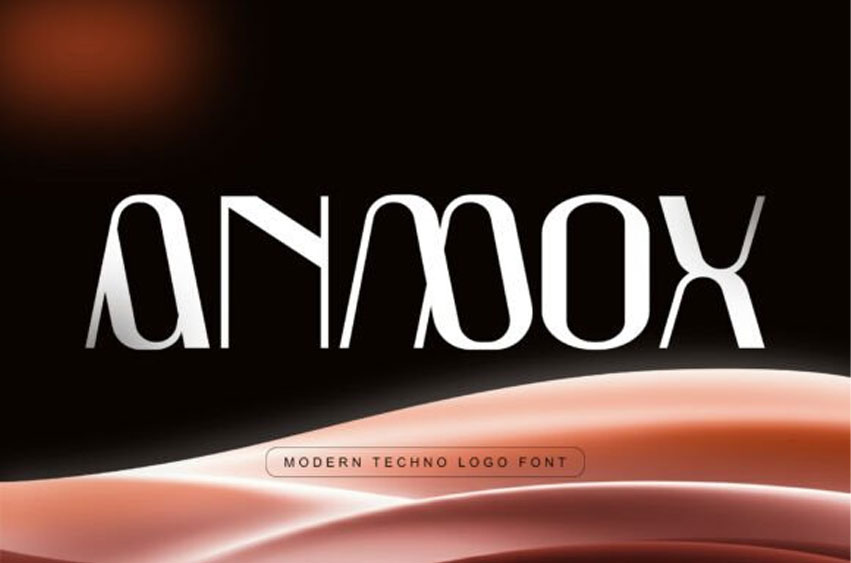
Anmox Font Inspired by innovation, robotics, and digital systems, Anmox is ideal for technology branding, AI projects, modern logos, science fiction titles, and any design that calls for a bold, forward-thinking identity.
Each letterform is designed with unique curve transitions and clean edges, giving your design a sleek, high-tech appearance while maintaining perfect legibility.